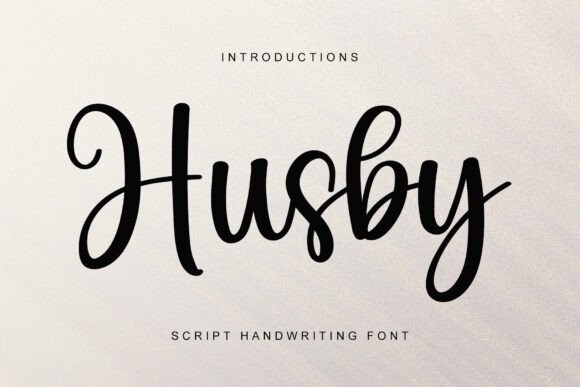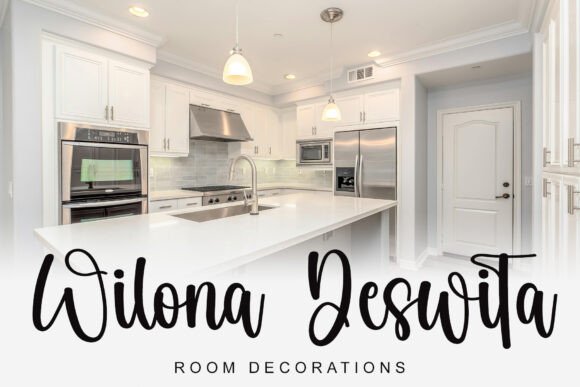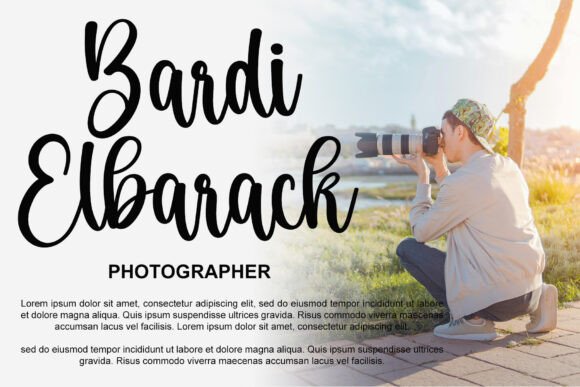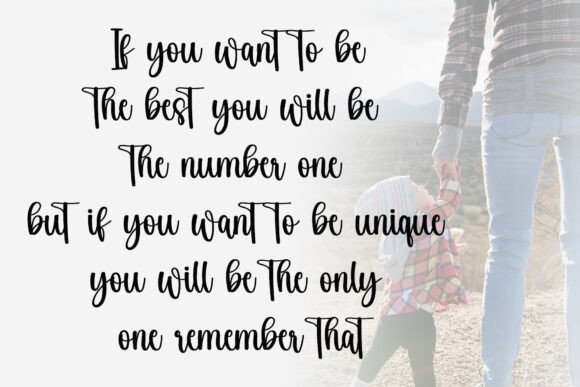
Husby Font: Elegant Script for Wedding Invitations & Branding
About the Husby Font
Unleash your creativity with Husby Font, a versatile font perfect for a wide range of applications. Husby is a stylish and dainty script font. It is suitable for any projects such as : logos, branding projects, label, photography, watermark, special events, and all your other lovely projects that need a beautiful script taste. This font is PUA encoded which means you can access all of the glyphs and swashes with ease.
Husby’s elegant and delicate nature makes it ideal for branding projects emphasizing sophistication and femininity, particularly logos, invitations, and short-form marketing materials. It excels in headlines, watermarks, and short text elements where its stylish flourishes can shine. However, its low x-height and intricate detailing make it unsuitable for body copy or extended text. Legibility suffers at smaller sizes.
Pair Husby with a clean sans-serif like Montserrat or a geometric sans-serif like Futura for a modern contrast. For a more classic feel, pair it with a traditional serif font such as Garamond or Didot. Avoid pairing it with other highly decorative script fonts, which would create visual clutter.
Husby projects a refined and romantic personality, best suited for brands in fashion, beauty, wedding planning, or luxury goods. Its delicate swashes add a touch of whimsy without compromising its overall air of sophistication.